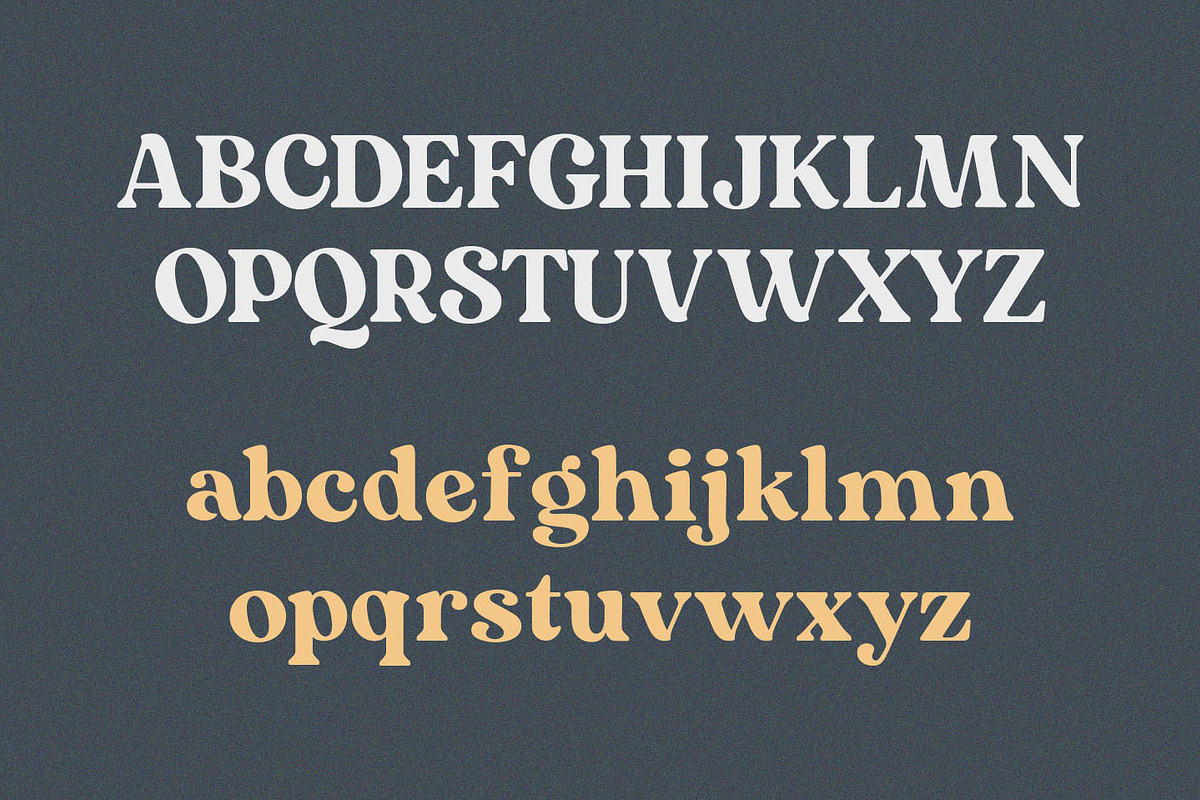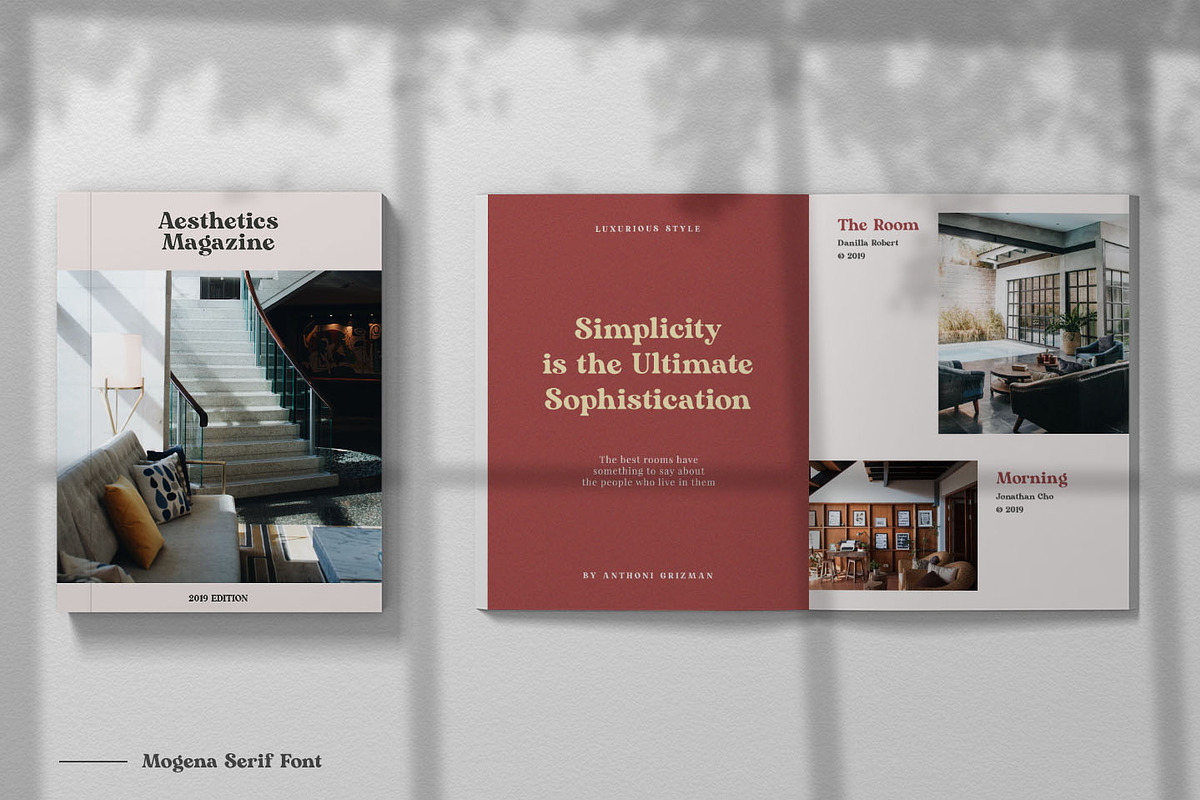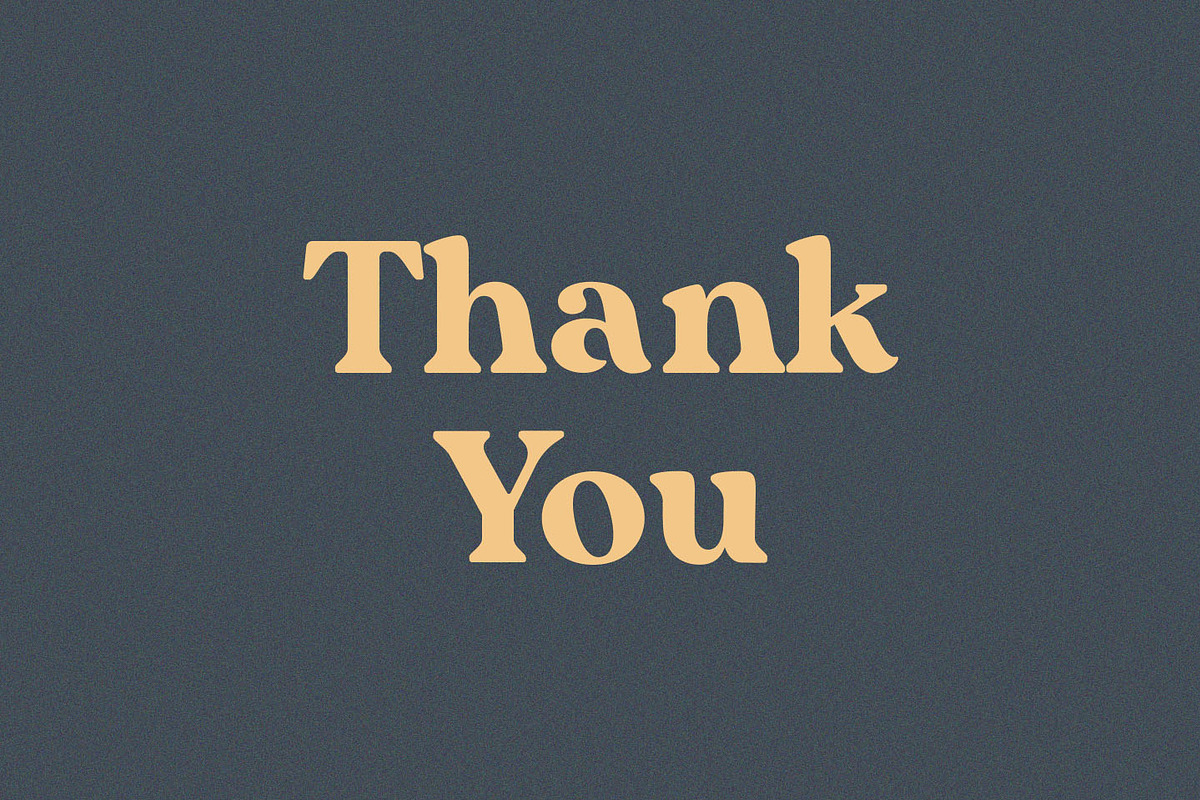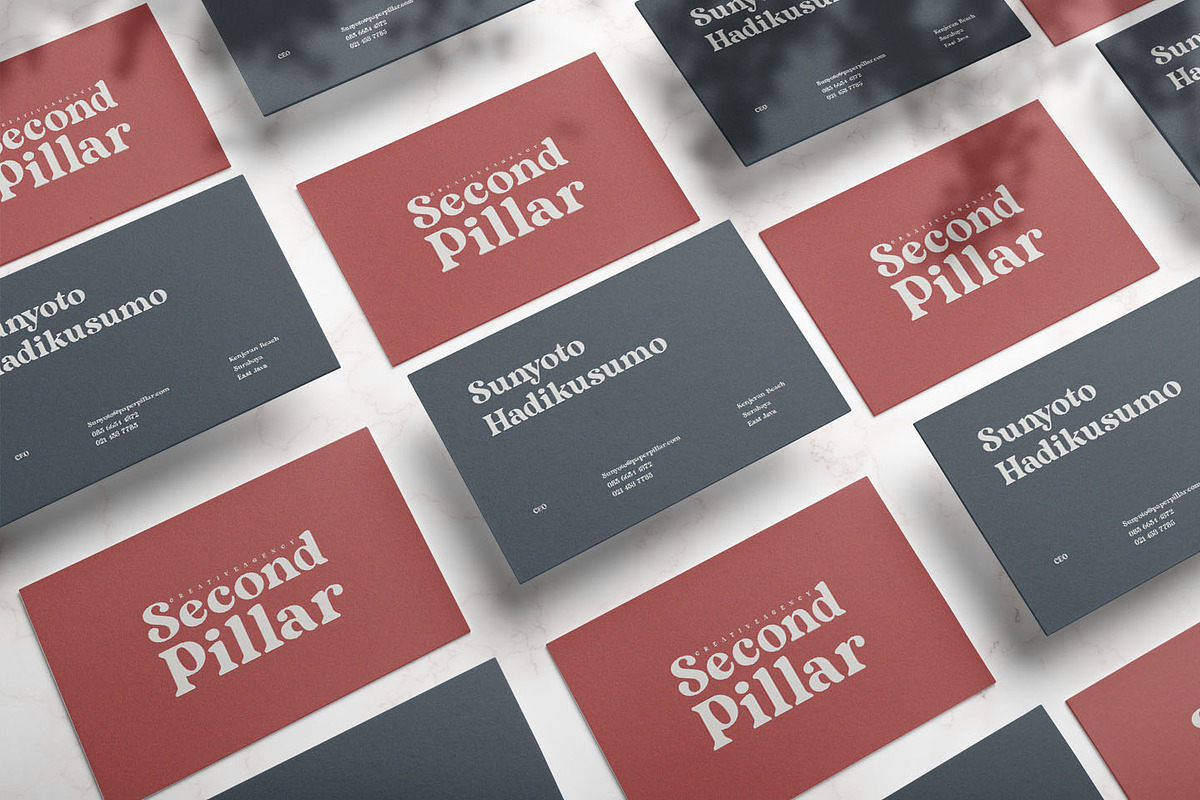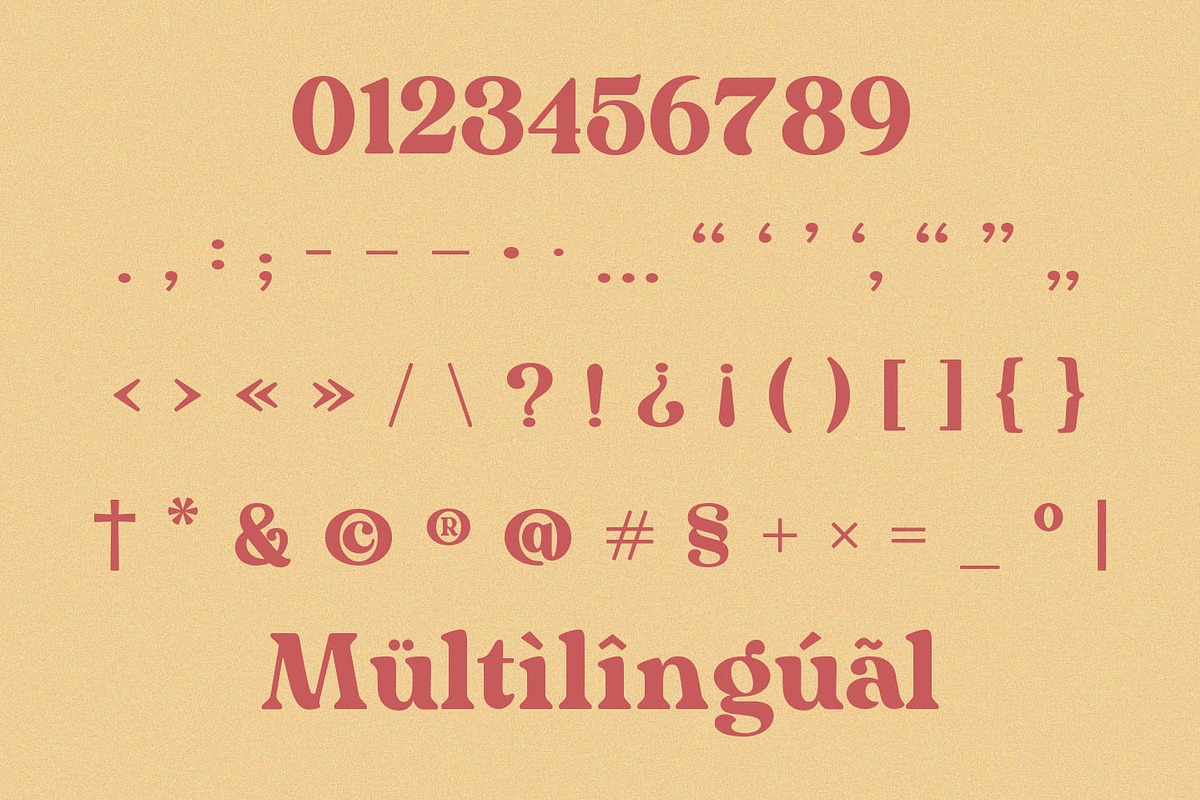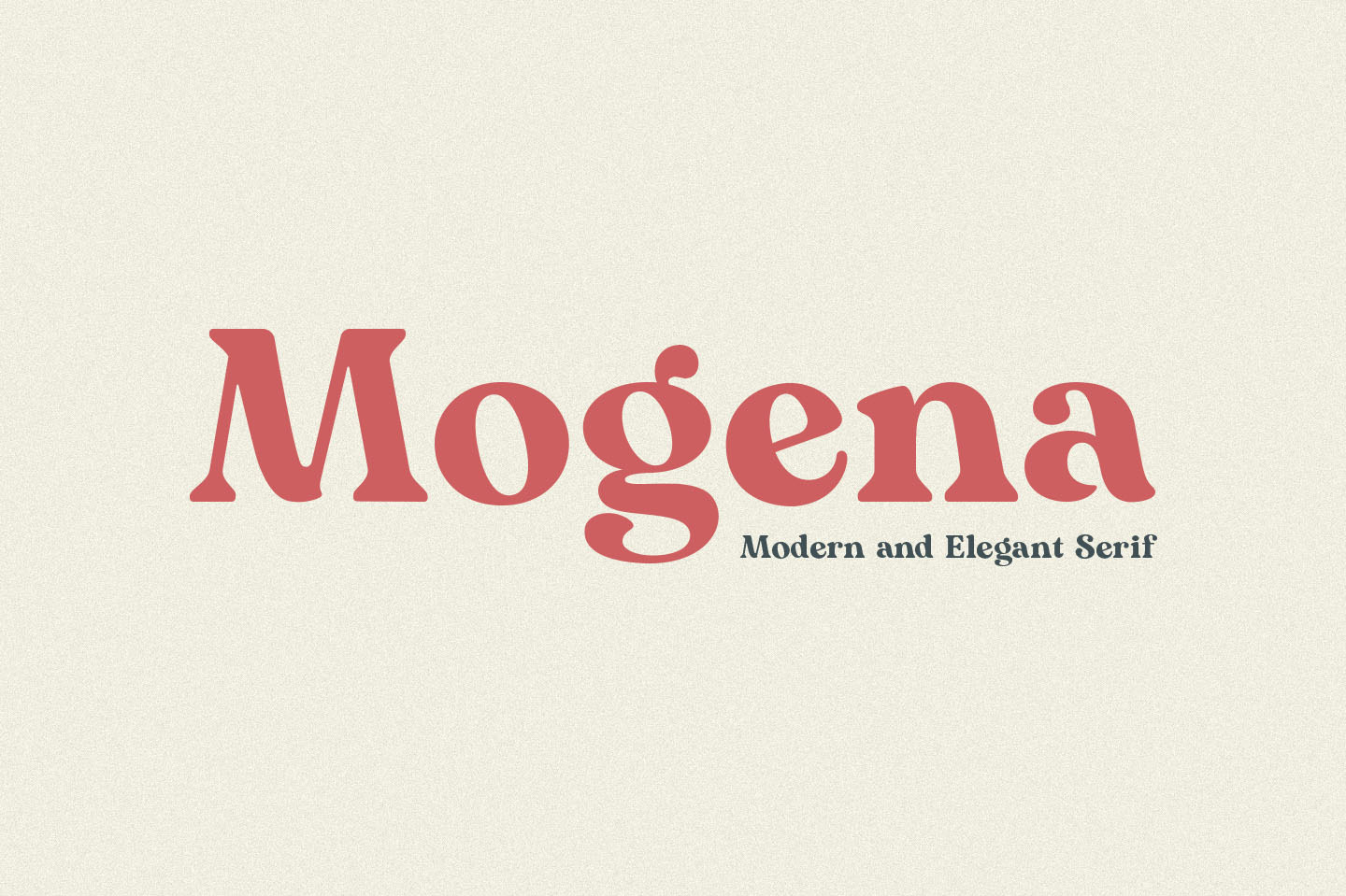
Mogena - Modern Serif Font
Mogena is a modern and elegant serif font. Mogena is well-suited for advertising, branding, logotypes, packaging, titles, headlines and editorial design.
- Mogena includes Capital and Lowercase letters, Alternates, and Ligatures
- Numbers + punctuation
- Foreign language support